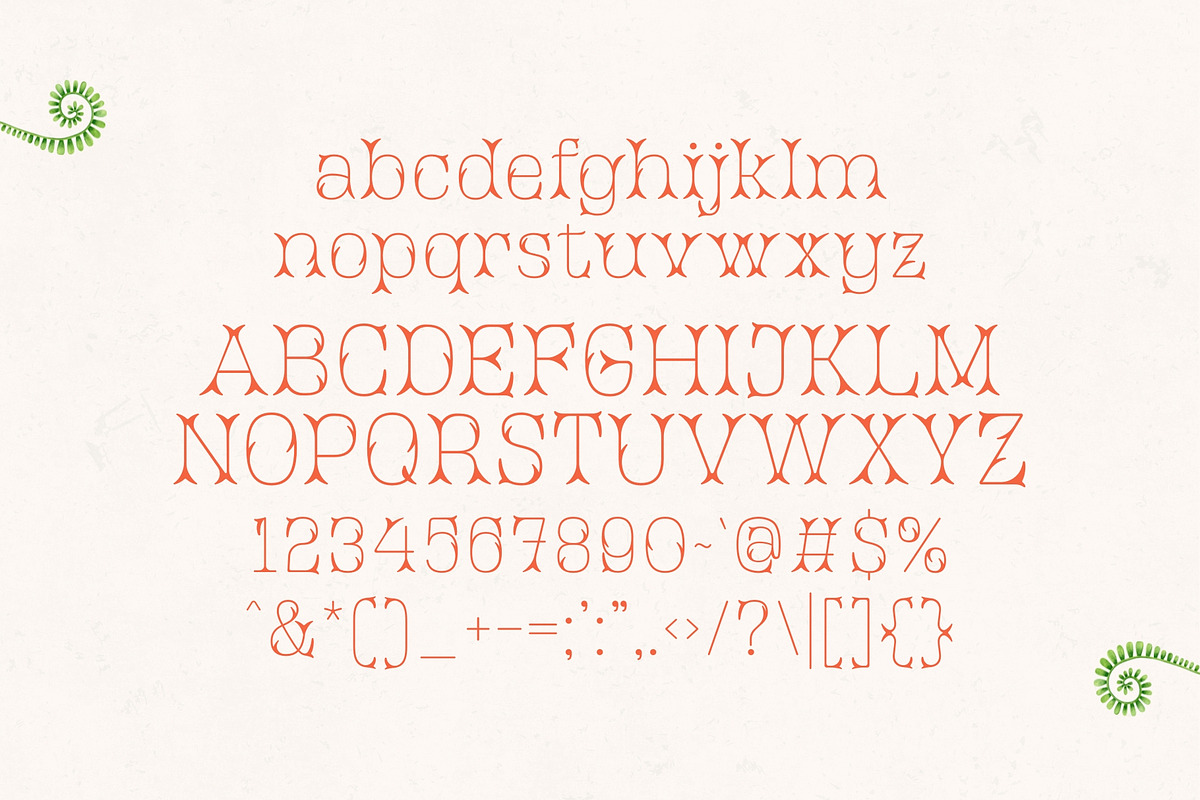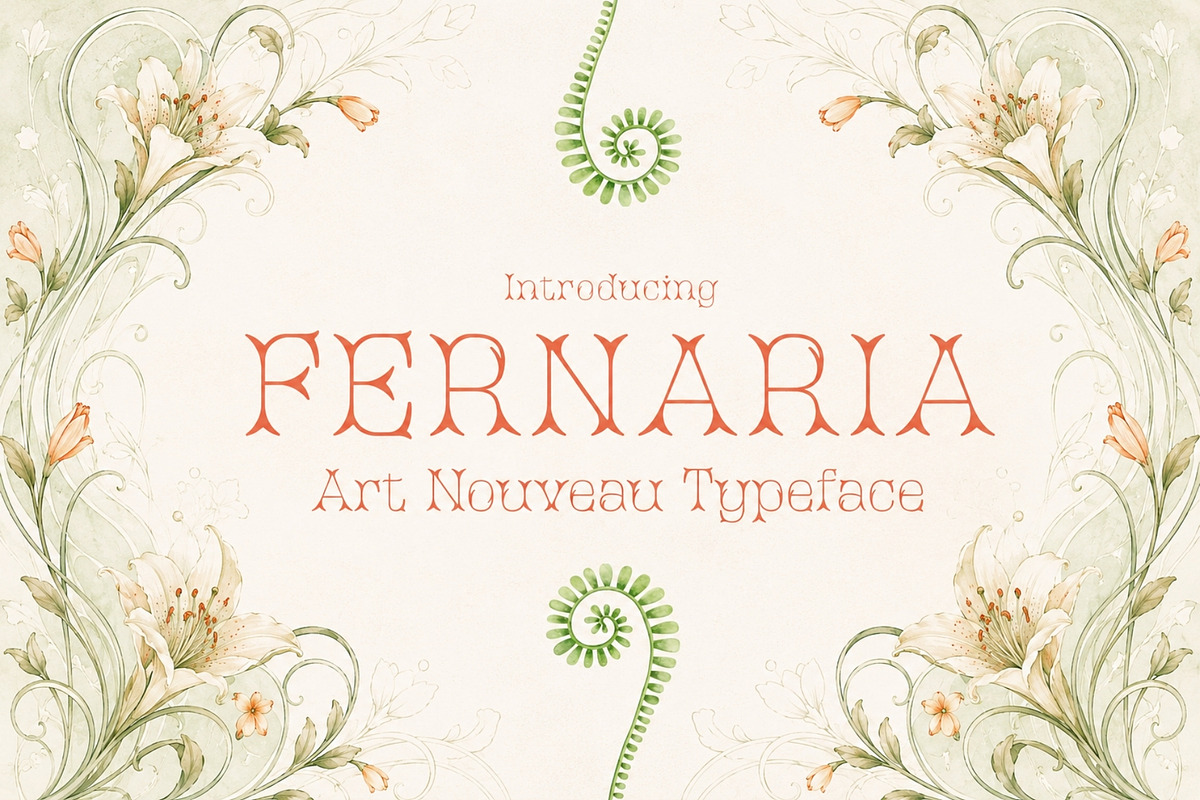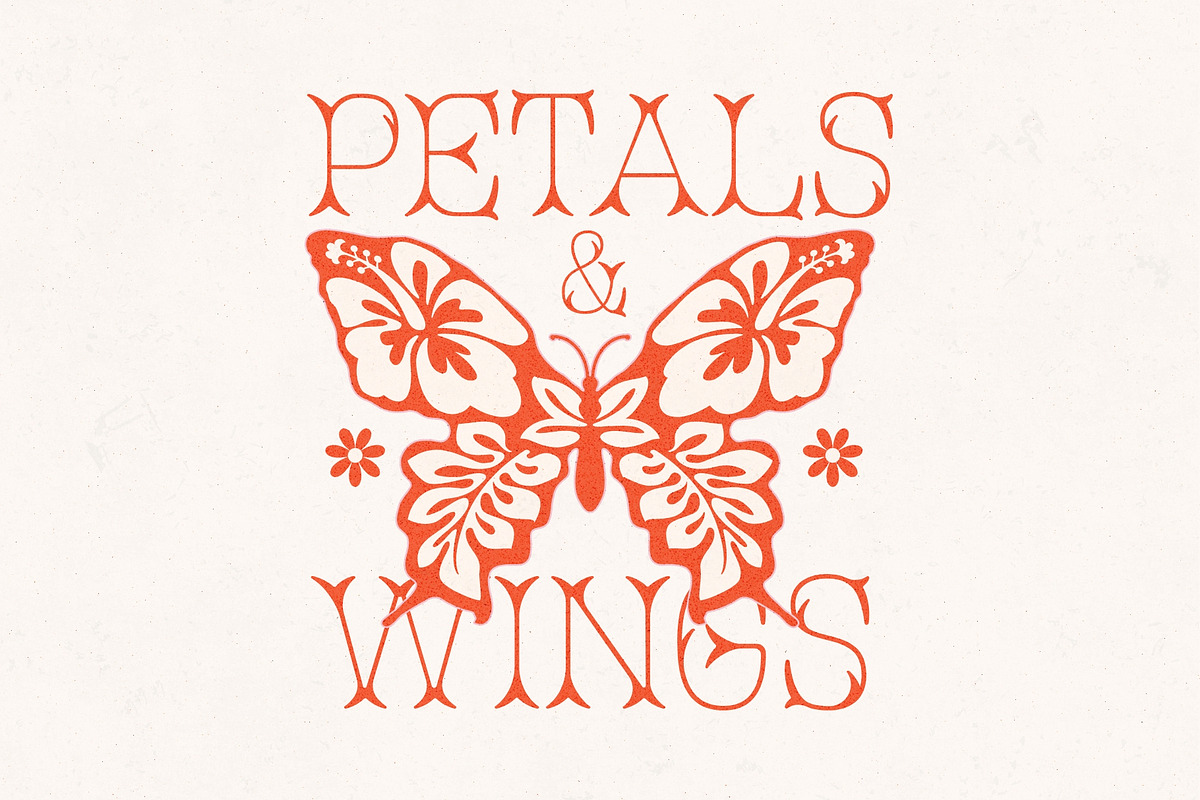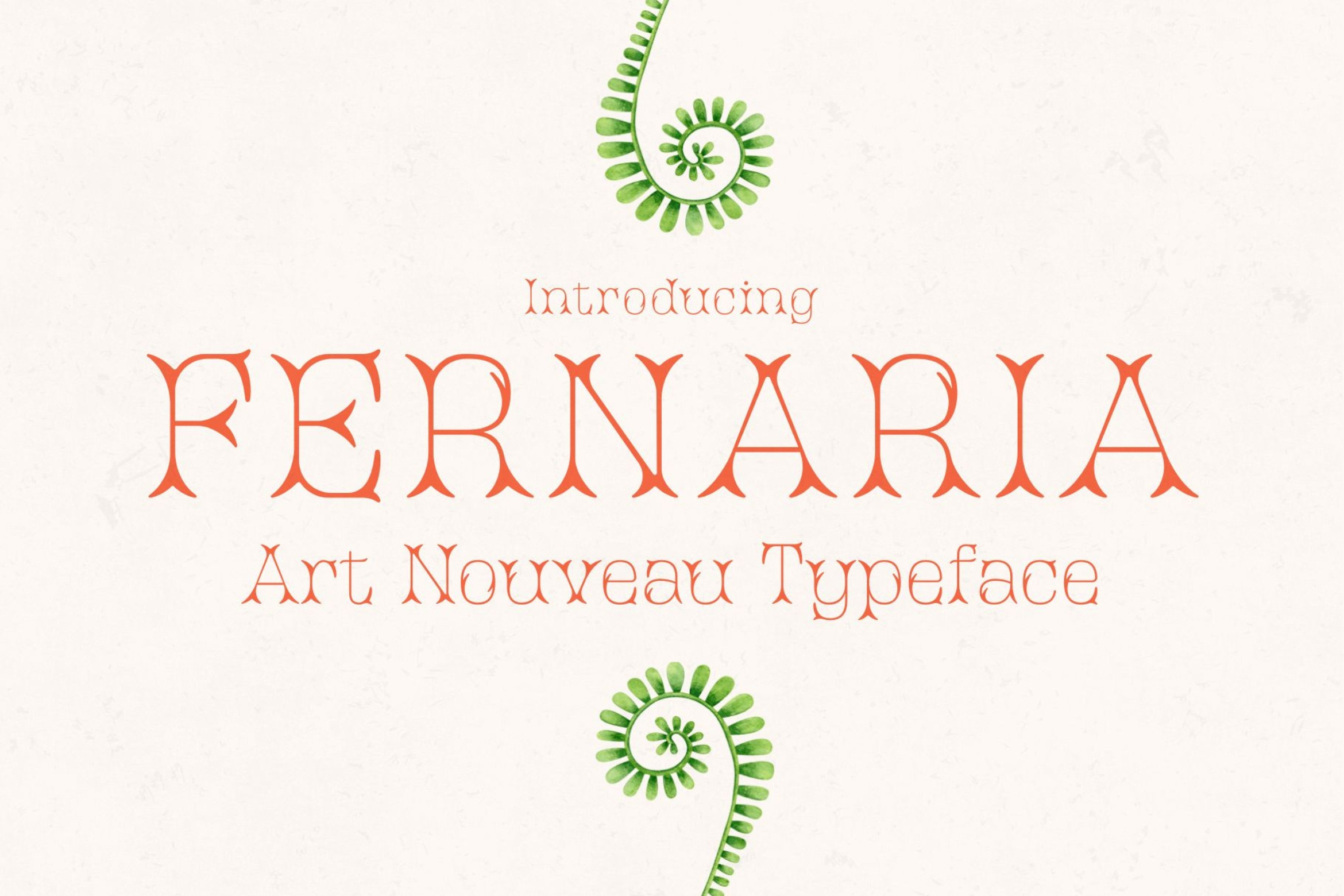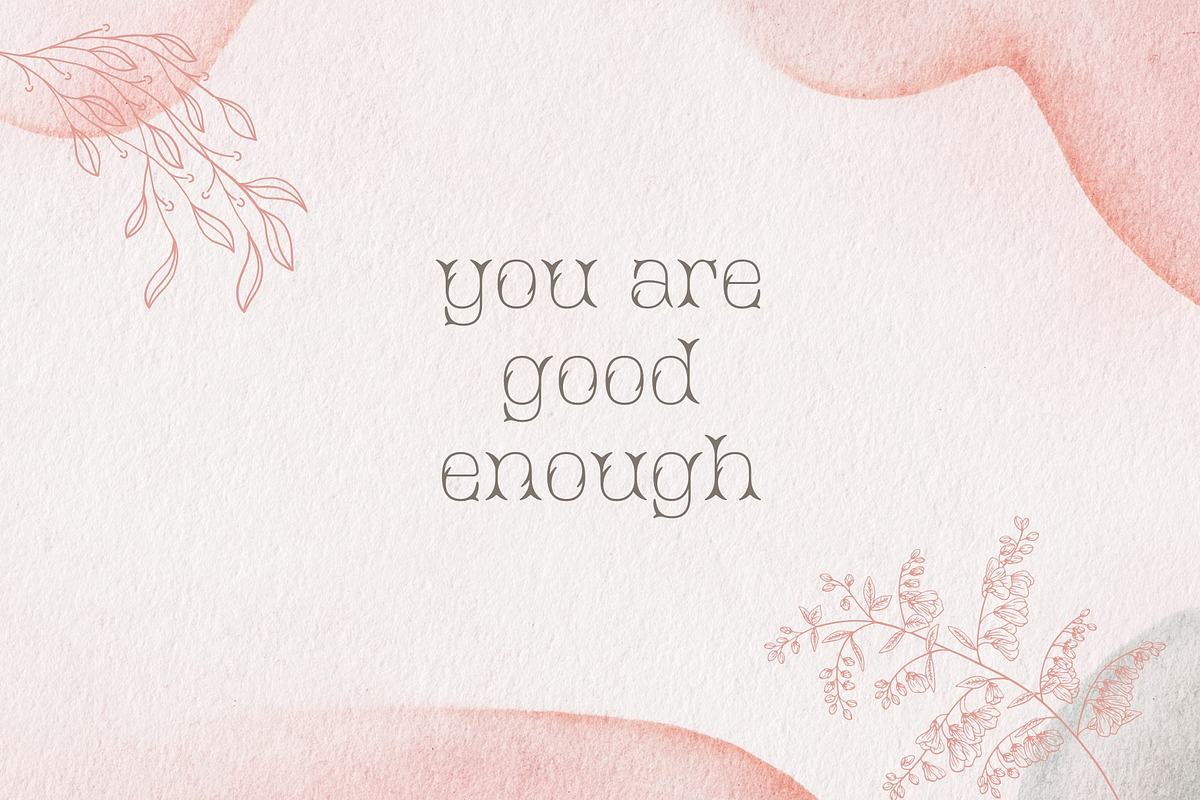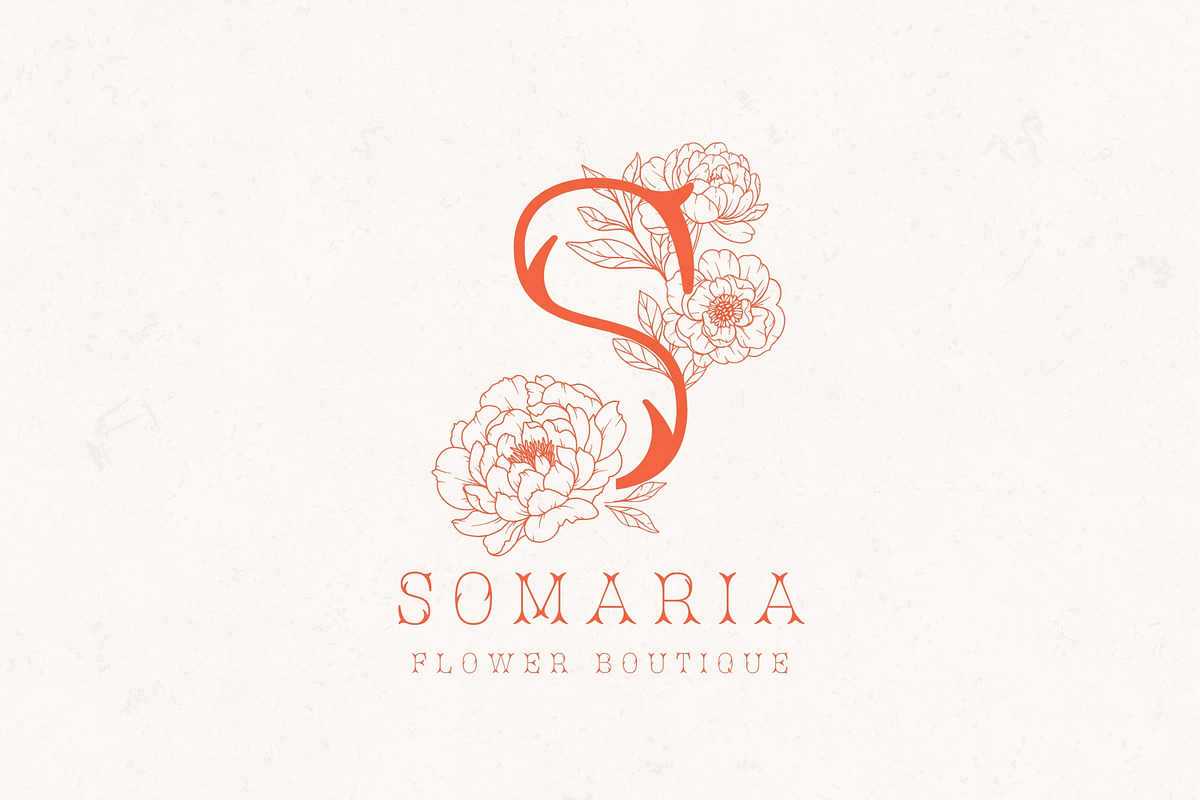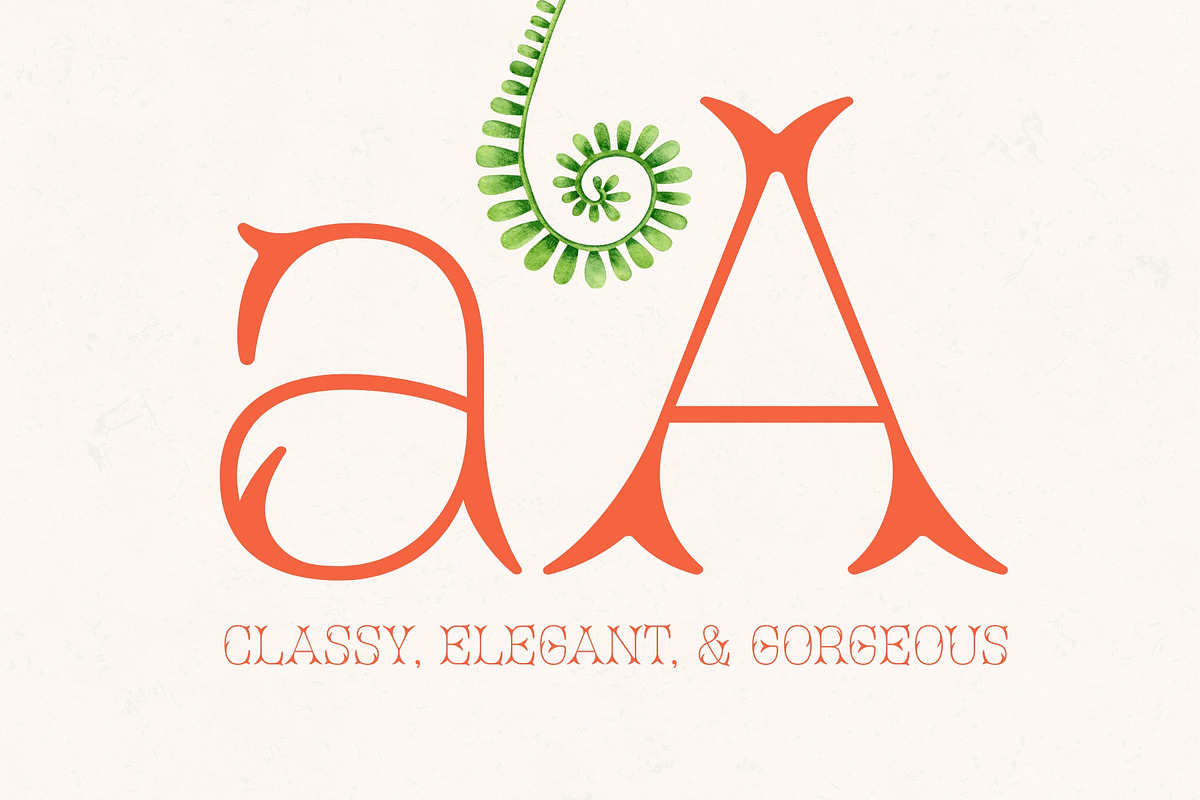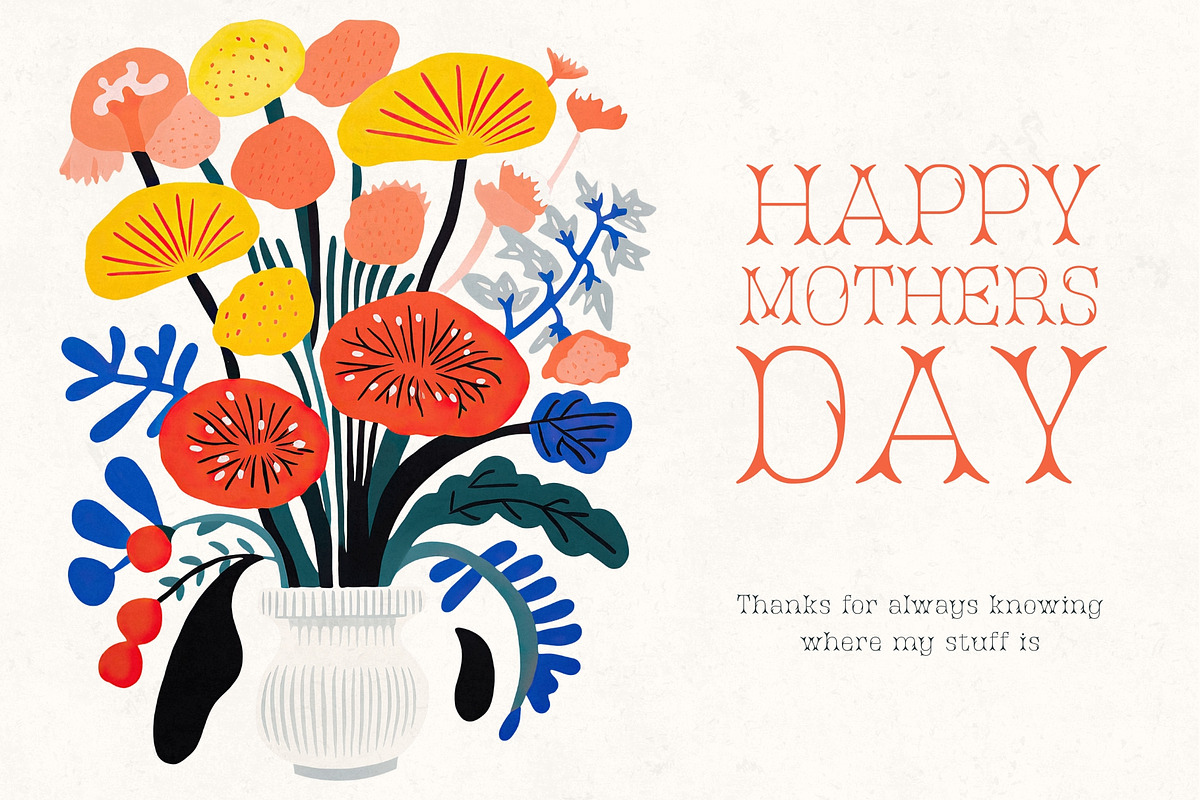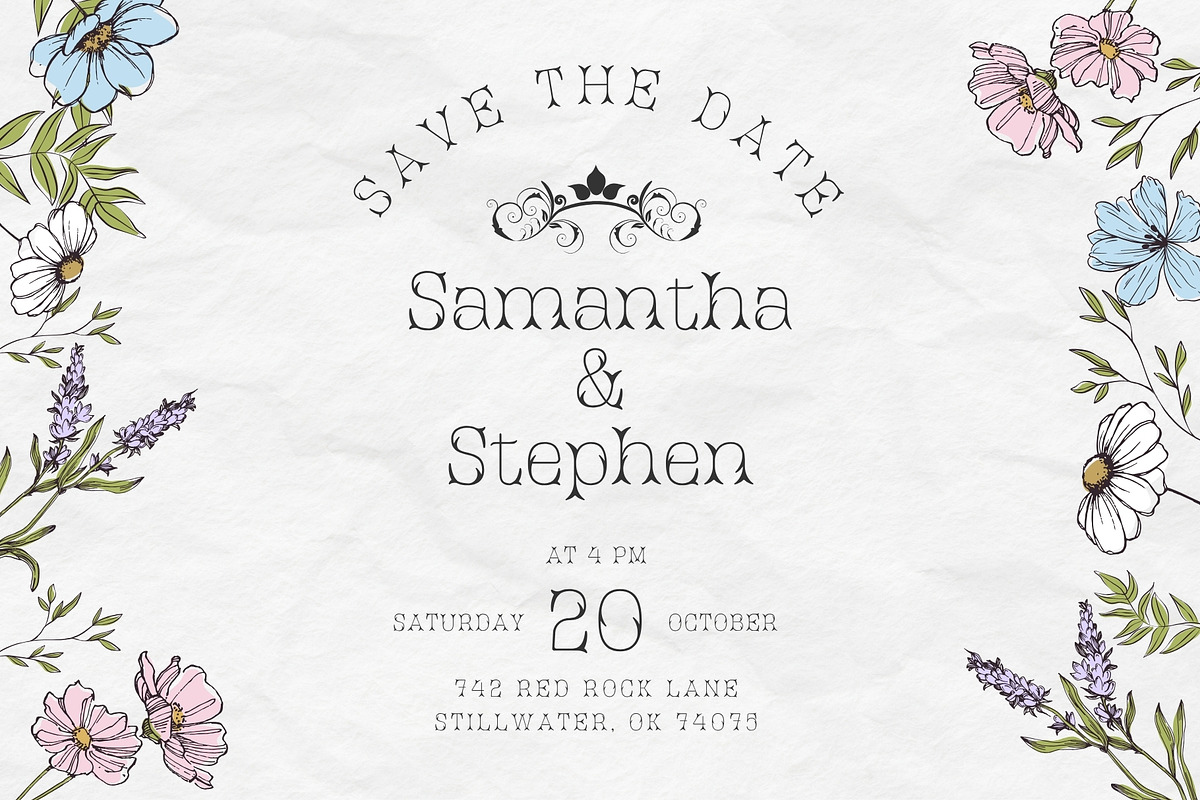
Fernaria - Art Nouveau Typeface
Step into timeless elegance with Fernaria, a stunning serif typeface where vintage charm meets modern sophistication. With graceful curves and delicate strokes, Fernaria draws inspiration from the romantic flow of Art Nouveau, all while maintaining a contemporary edge that feels fresh, stylish, and undeniably feminine.
Every letterform in Fernaria has been thoughtfully crafted to exude beauty and versatility, perfect for brands that crave distinction, social media designs that demand attention, and editorials or posters that tell a captivating story. Whether you're building a luxury brand, designing wedding stationery, or adding flair to your magazine layouts, Fernaria elevates your work with an enchanting aesthetic.
Fernaria isn’t just a typeface, it’s a statement of elegance, artistry, and refinement. Let your words bloom with grace.